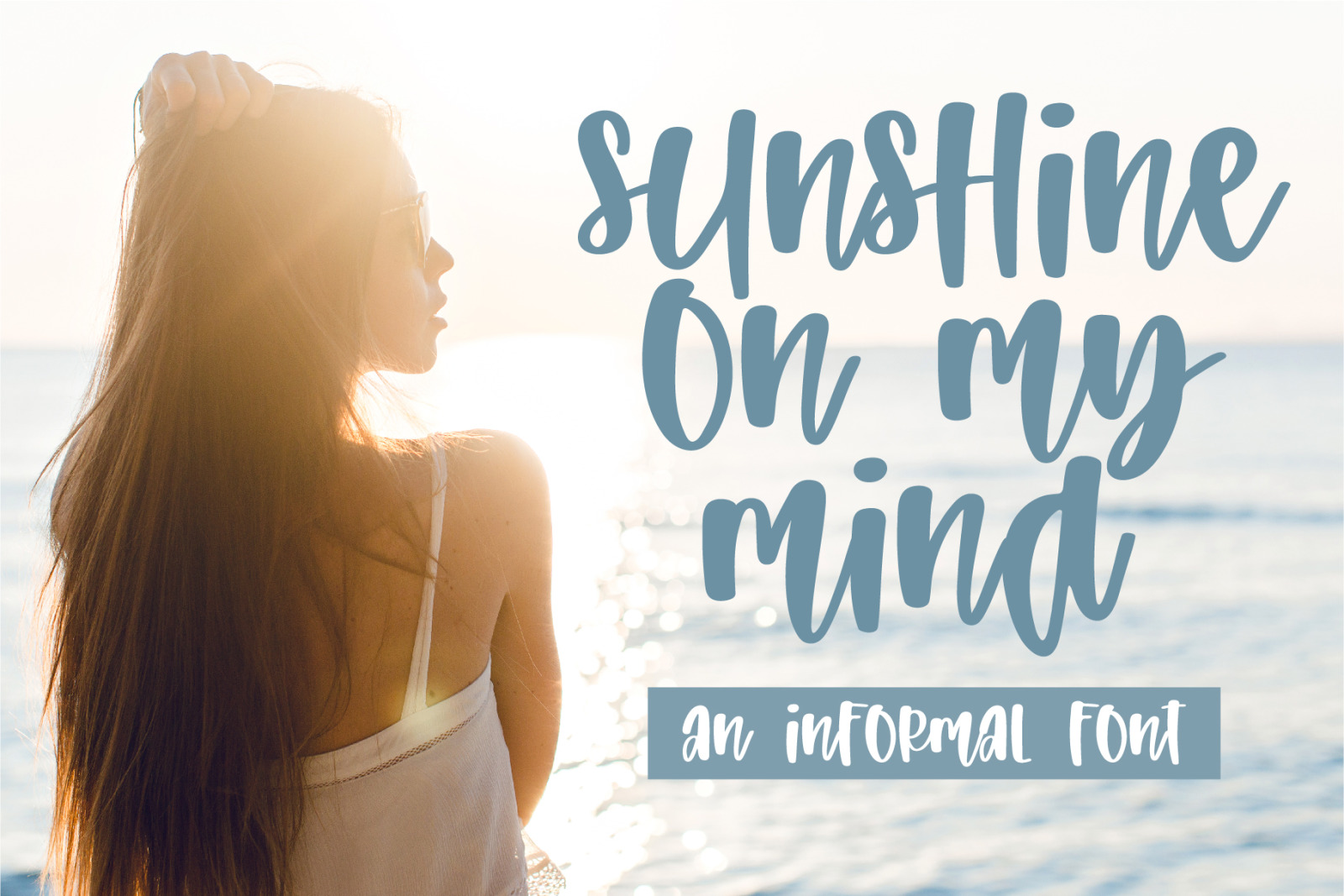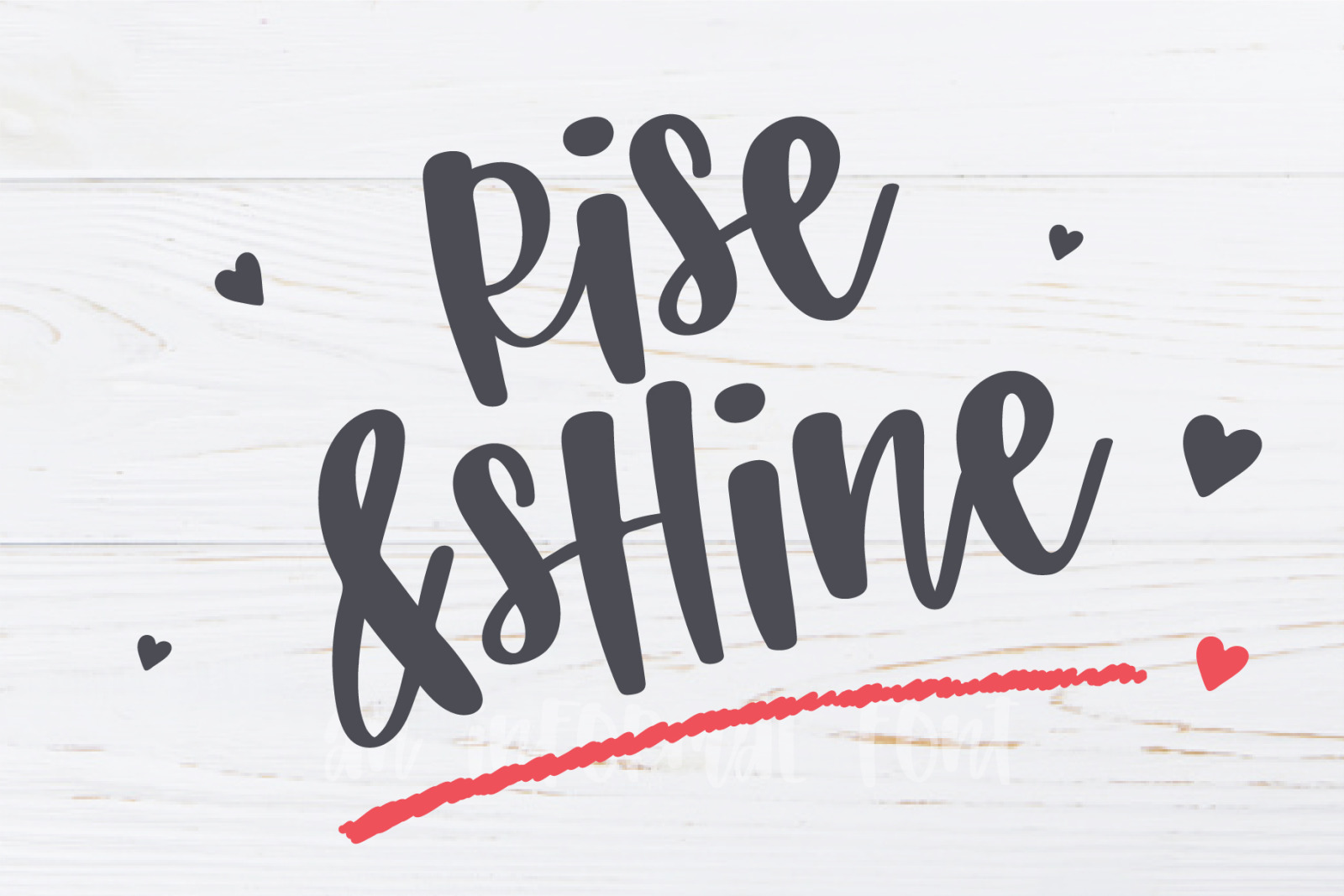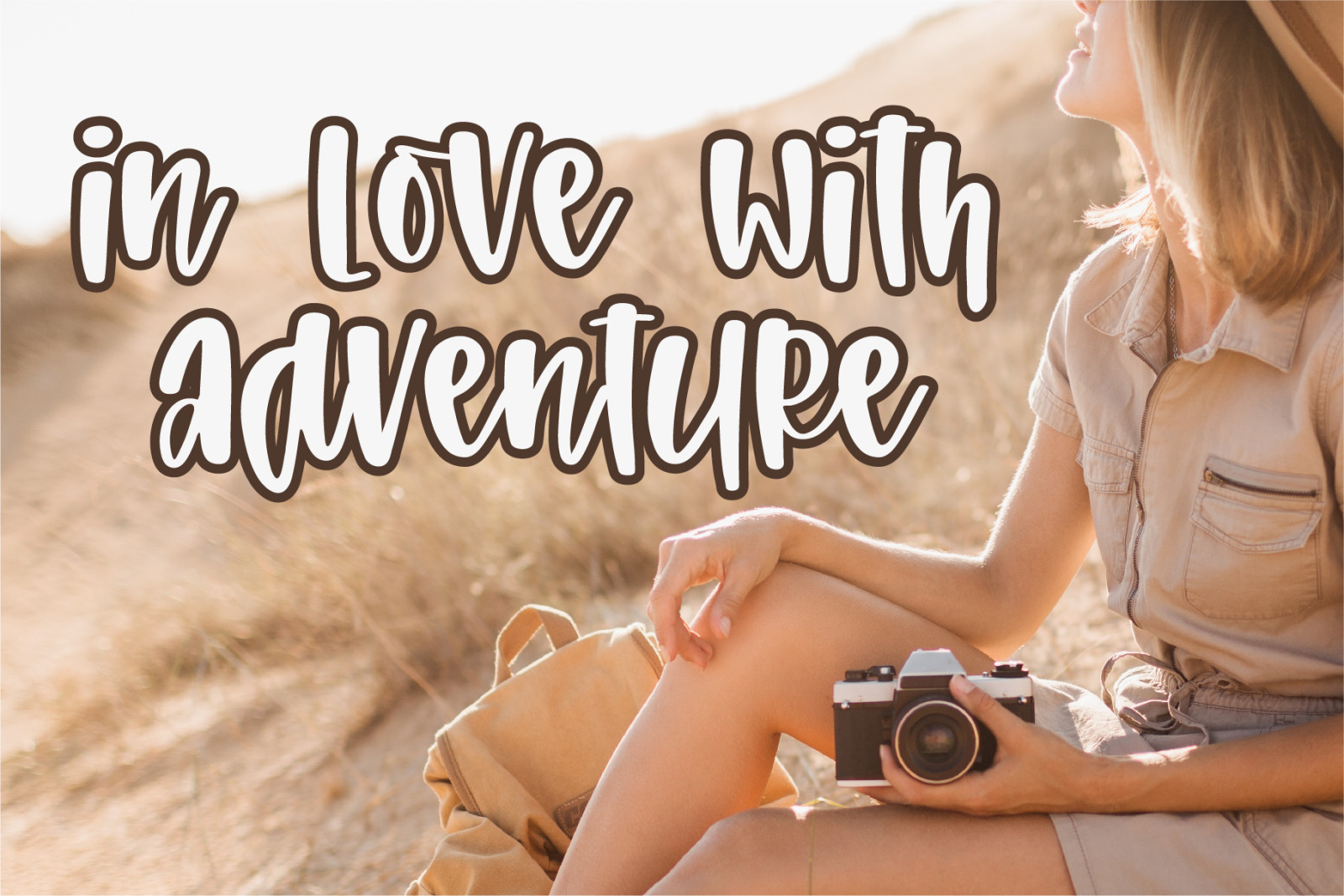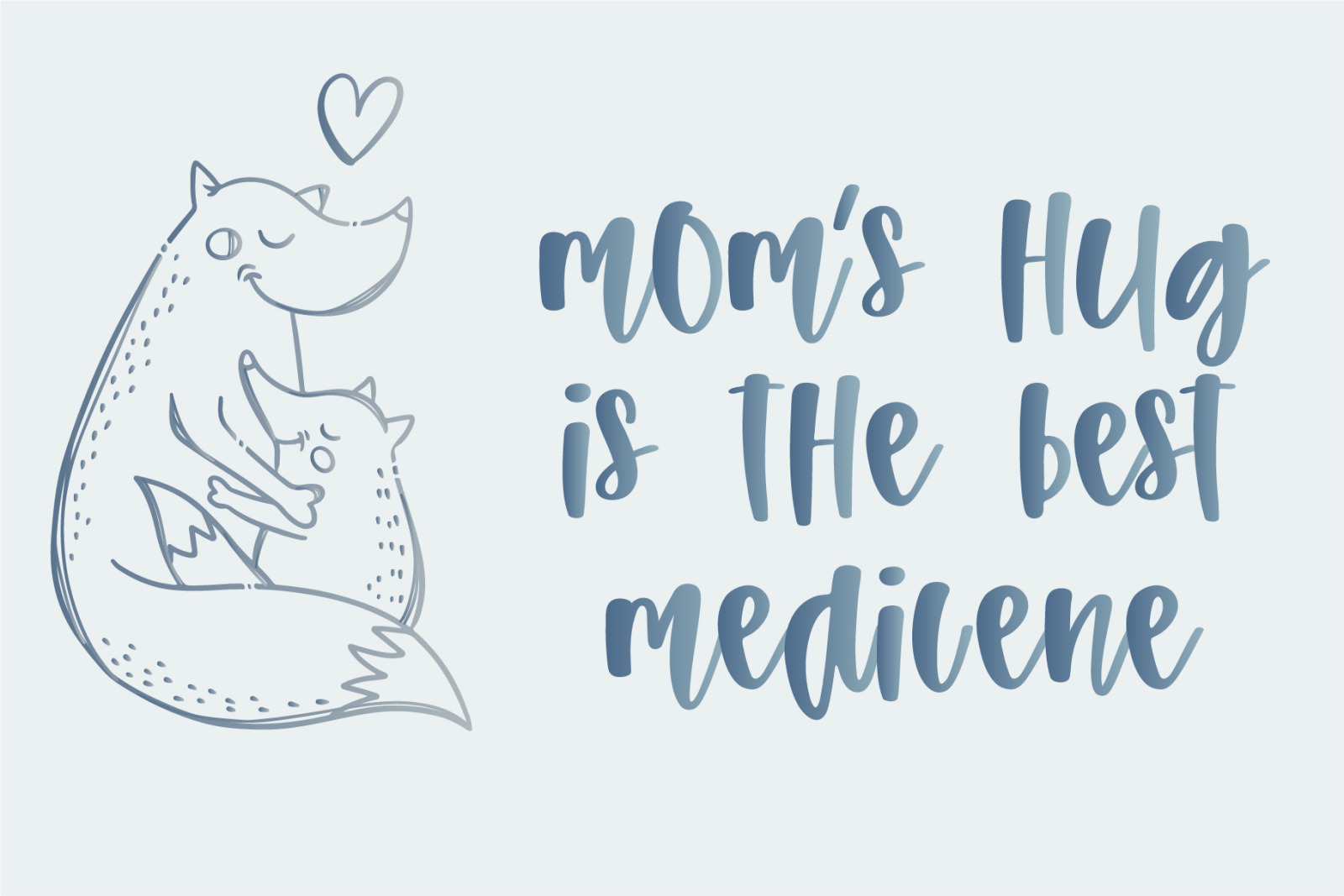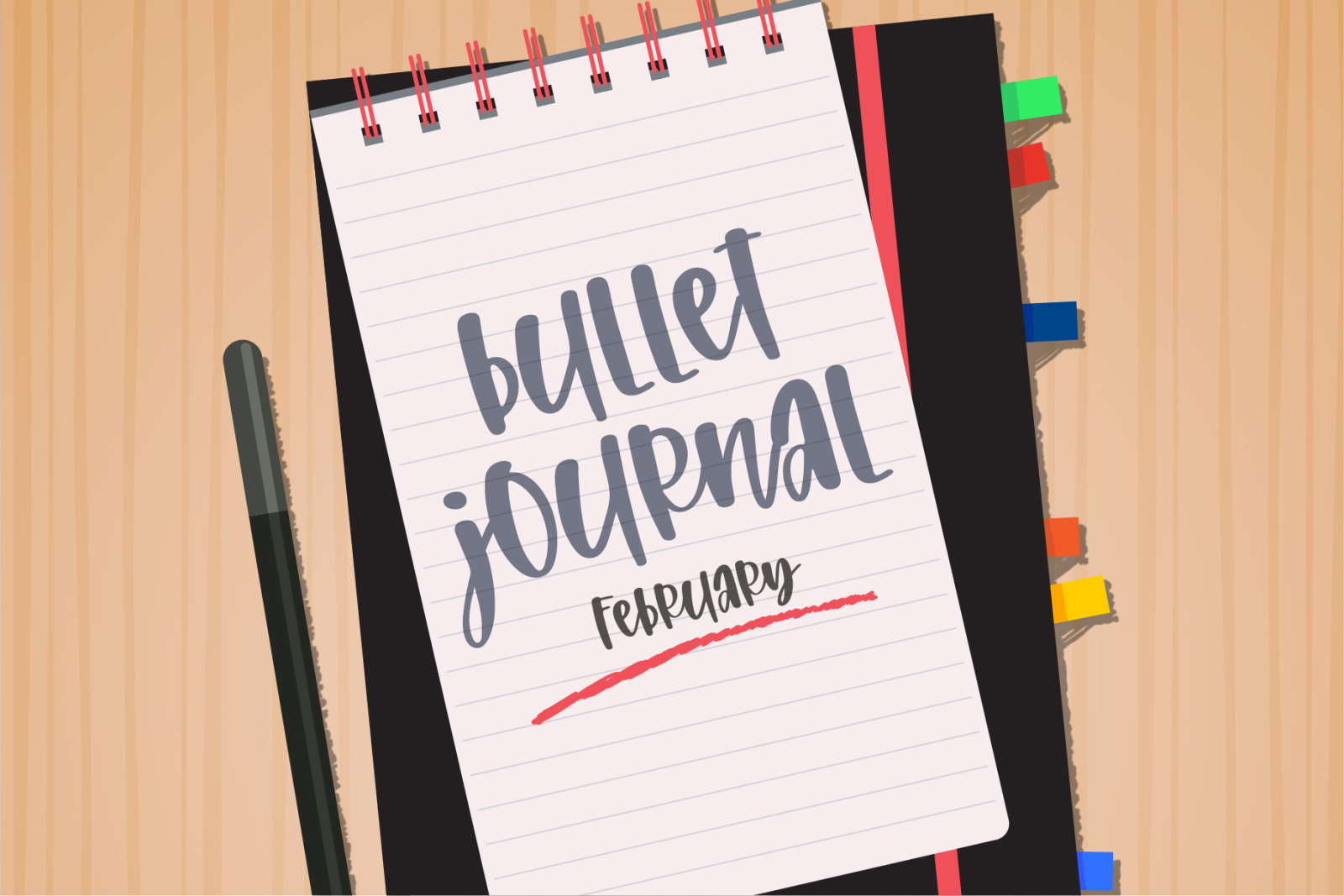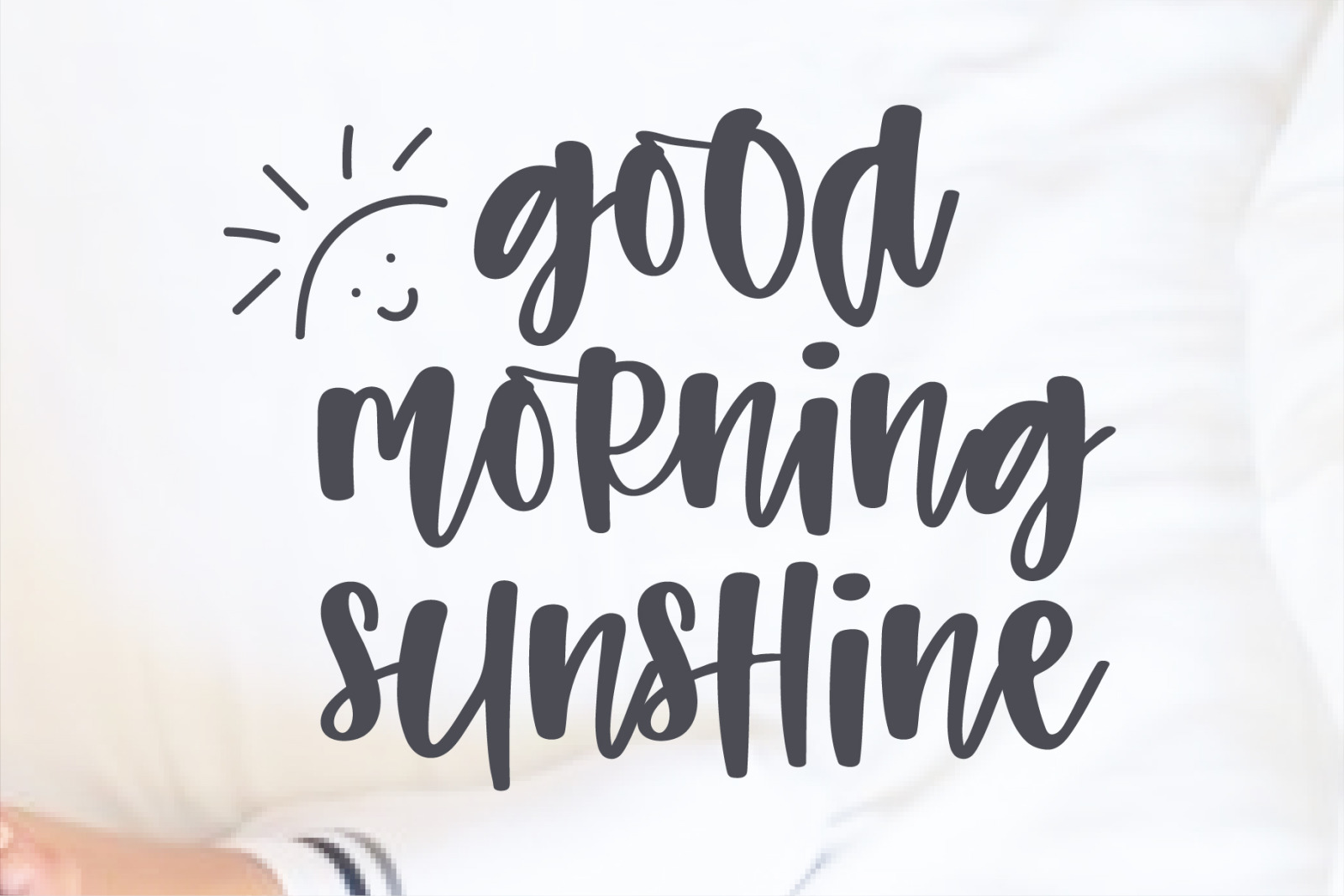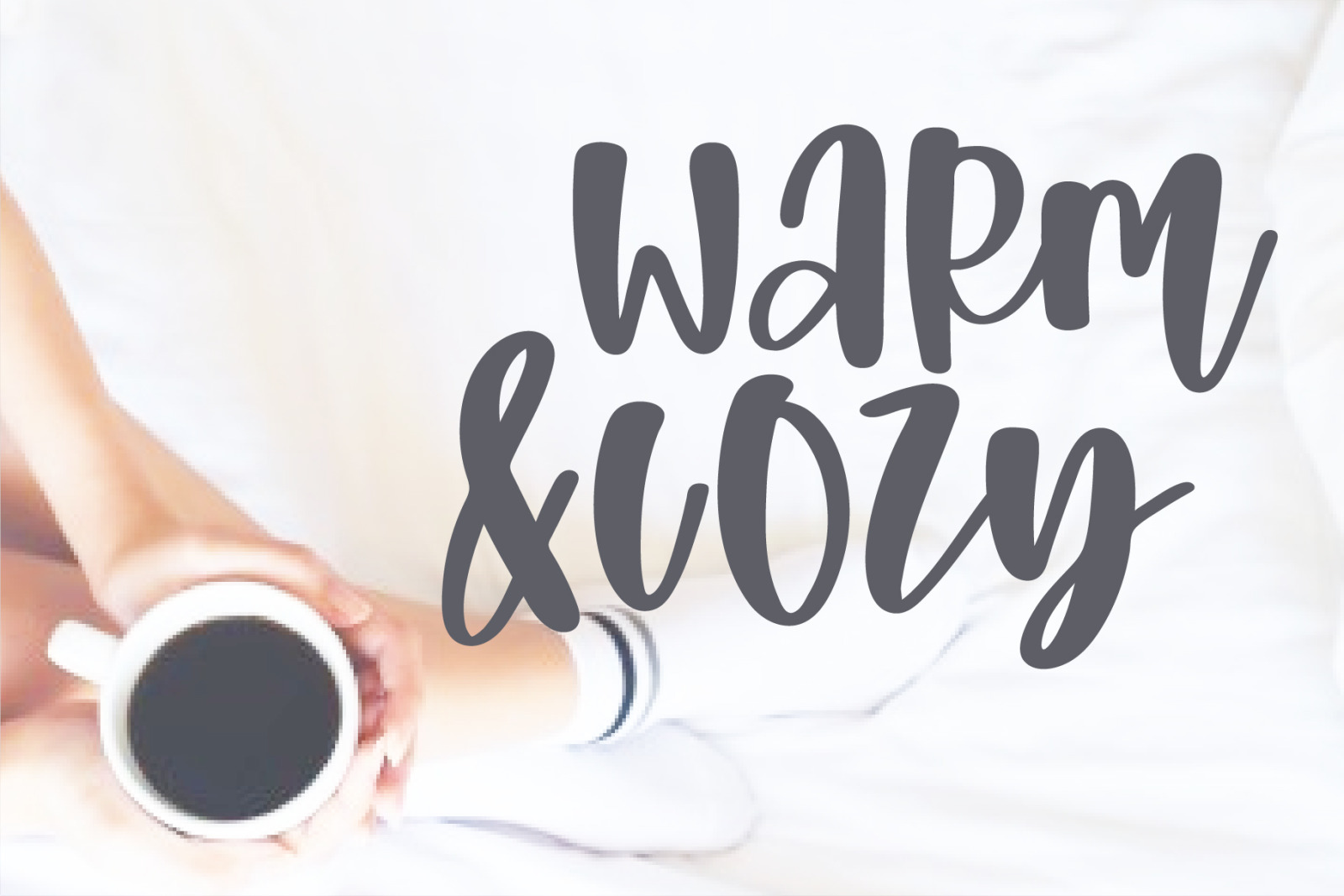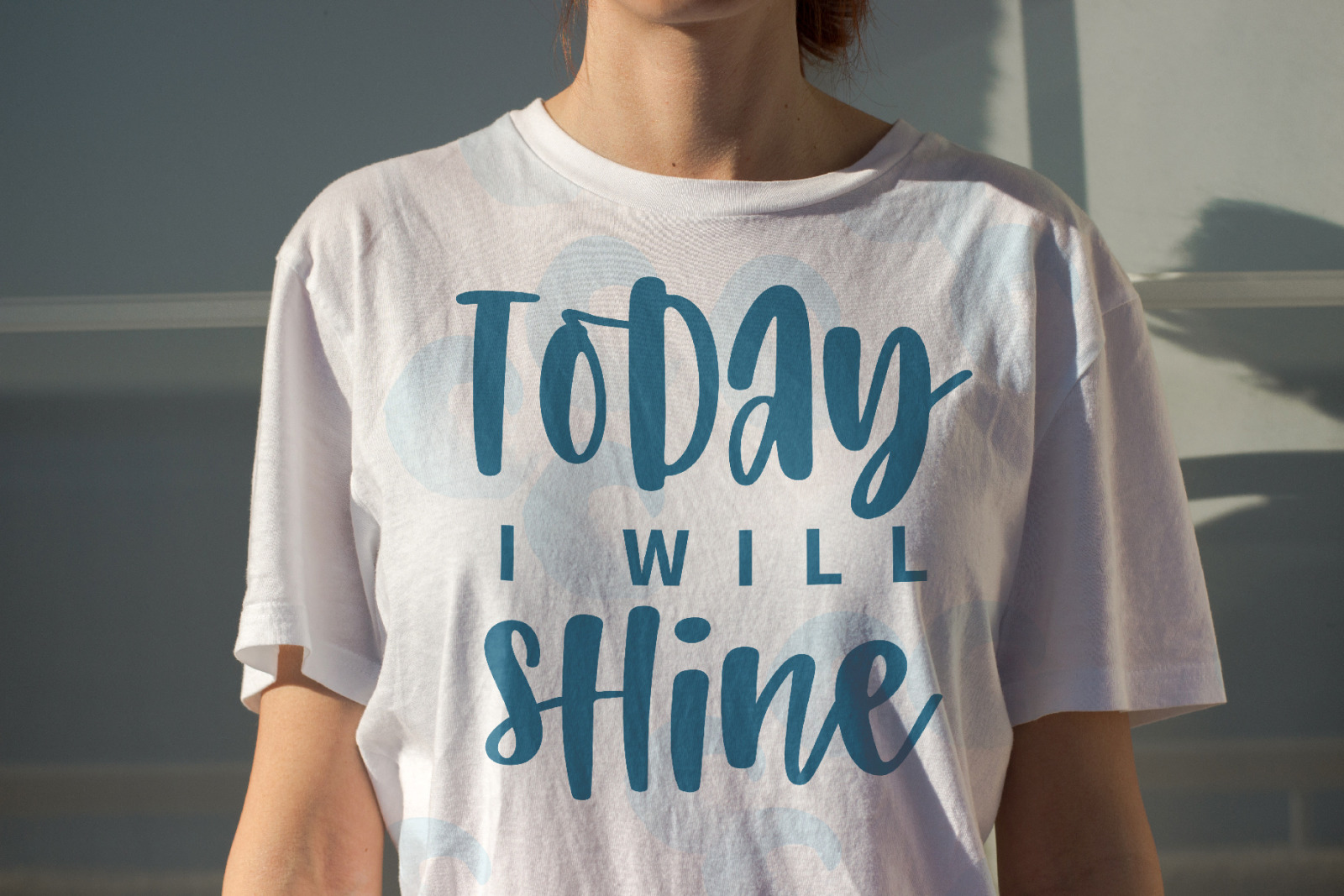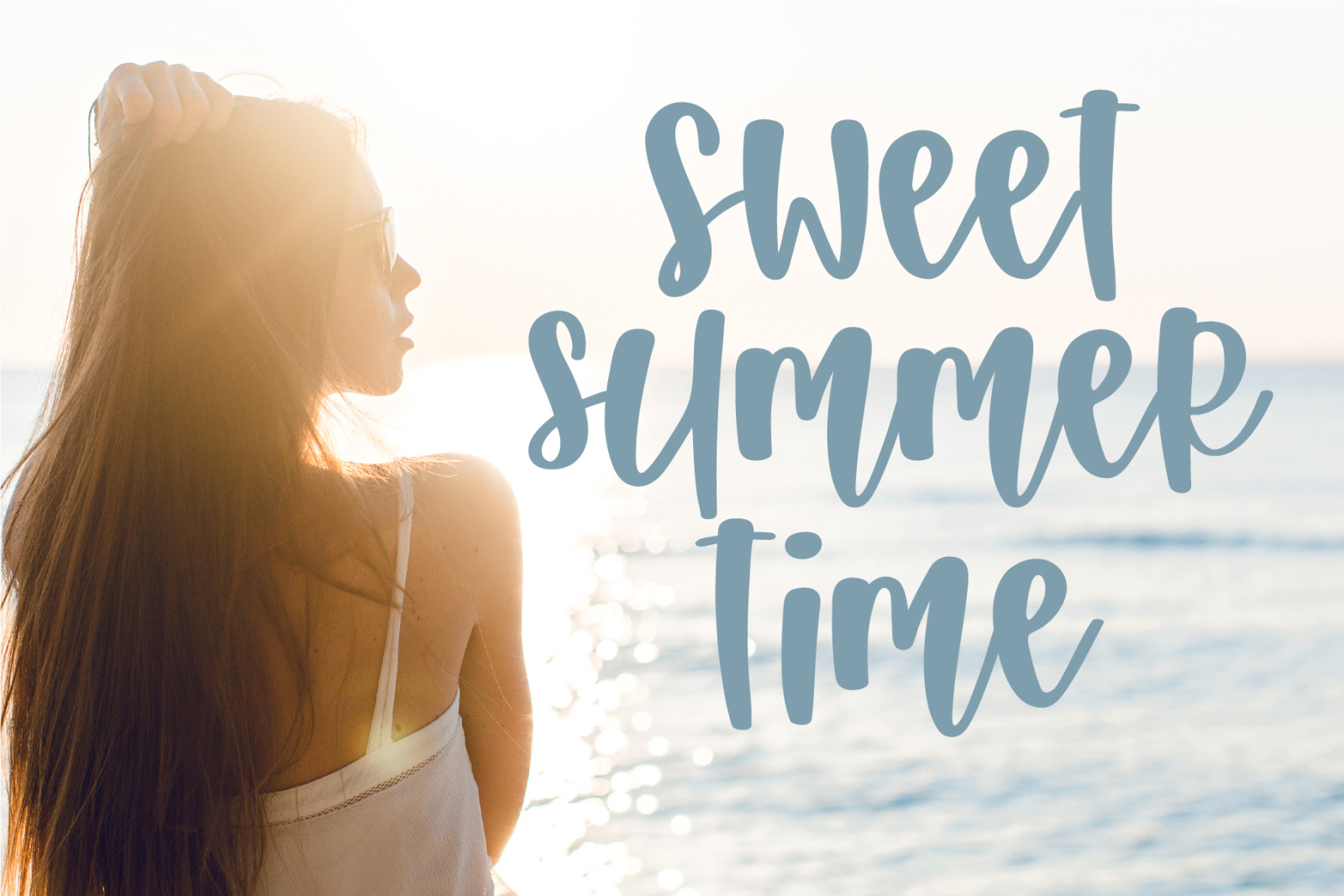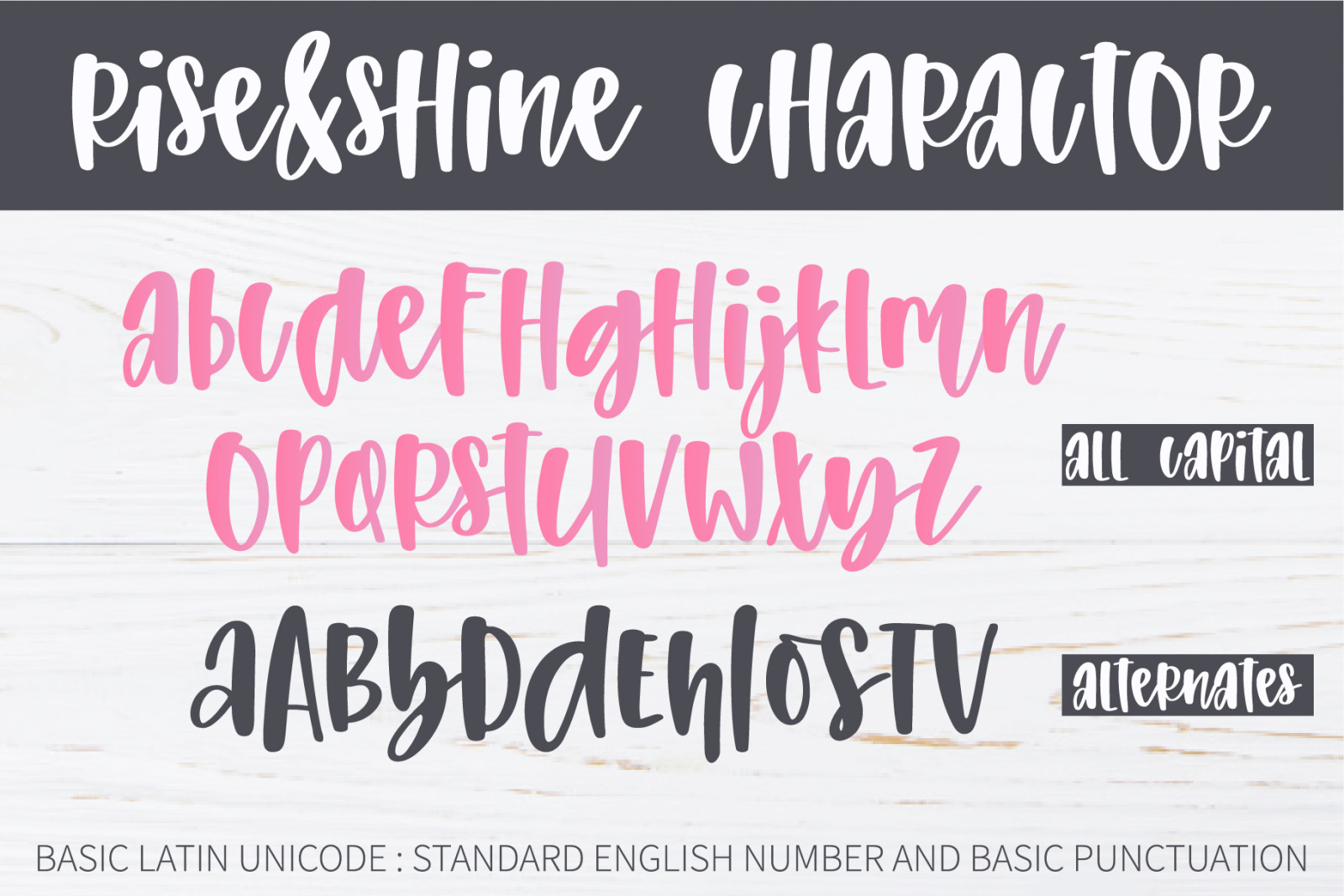
Sunshine on my mind-An informal font
Sunshine on My Mind is a cute, friendly, and relaxed handwritten font, featuring a lovely style. No matter the topic, this font will be an incredible asset to your fonts’ library, as it has the potential to elevate any creation.